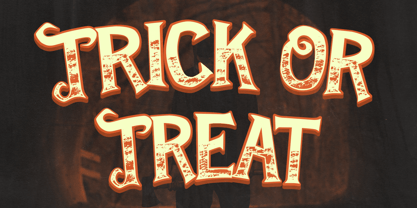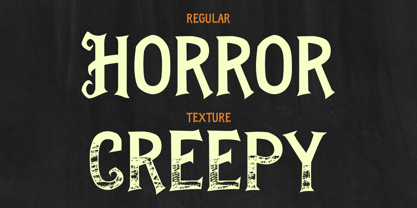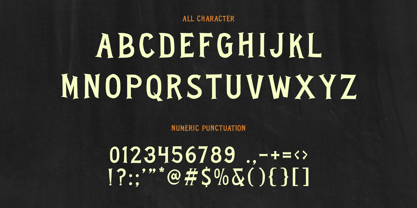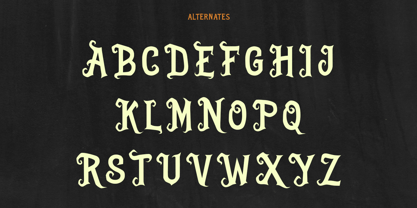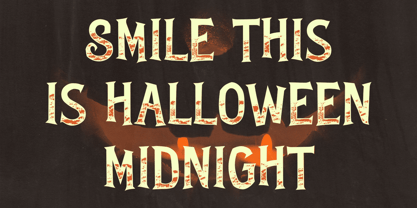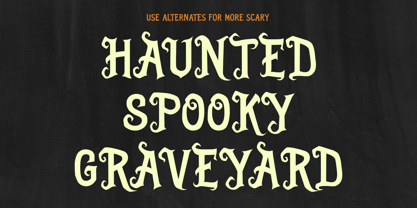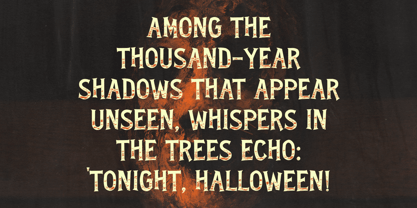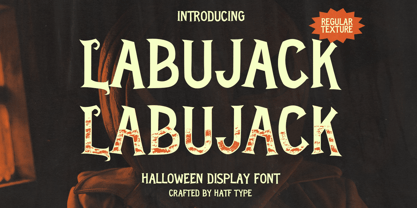
Labujack
by Hatftype
The Labujack Font Family was designed by Asep Rendi and published by Hatftype. Labujack contains 2 styles and family package options. More about this family
Enter the mysterious atmosphere of Halloween with LABUJACK, a display font inspired by pumpkin lanterns and spooky tales of darkness. This font comes in two captivating styles: LABUJACK Regular – a clean look with bold, wavy letterforms, ideal for vintage horror-themed titles or posters. LABUJACK Texture – a rougher, textured version, creating an aged, dusty, and characterful look, like handwriting on a haunted house wall. Both create a classic and spooky atmosphere, while still maintaining a warm Halloween feel. Perfect for horror movie poster designs, Halloween party invitations, mystery book covers, gothic themed packaging, and a variety of creative projects that desire an authentic and eerie feel. Designed with a balance between unique shapes and high legibility, LABUJACK is ready to be the centerpiece that sparks your imagination in any dark, mystical, or vintage horror themed work.